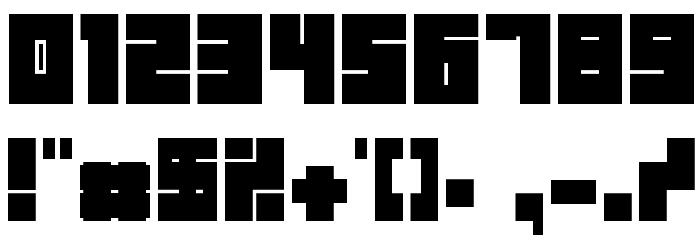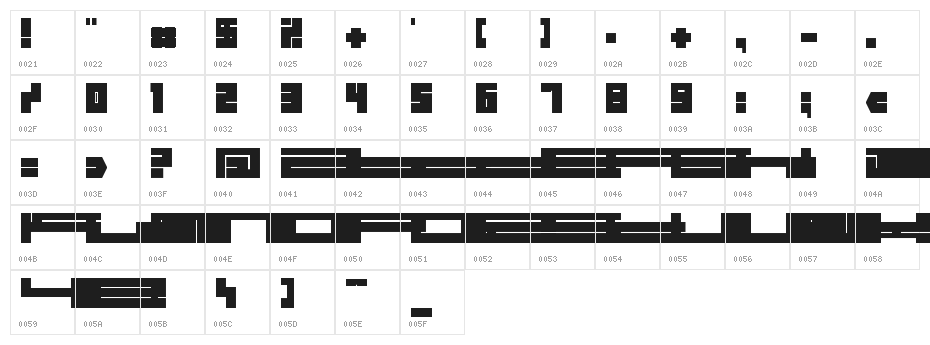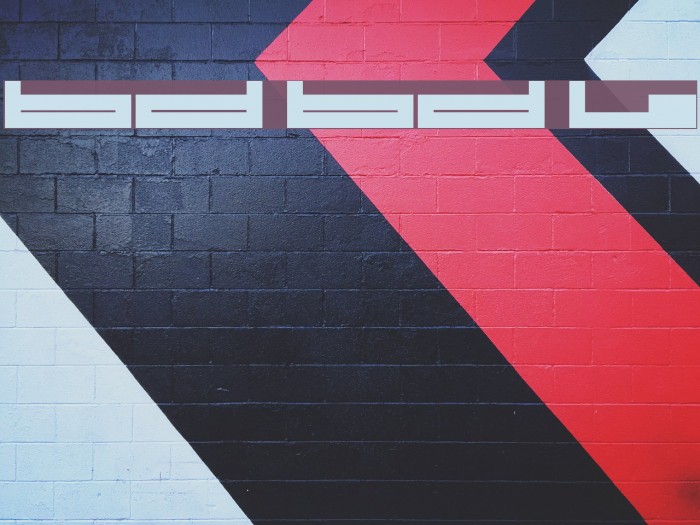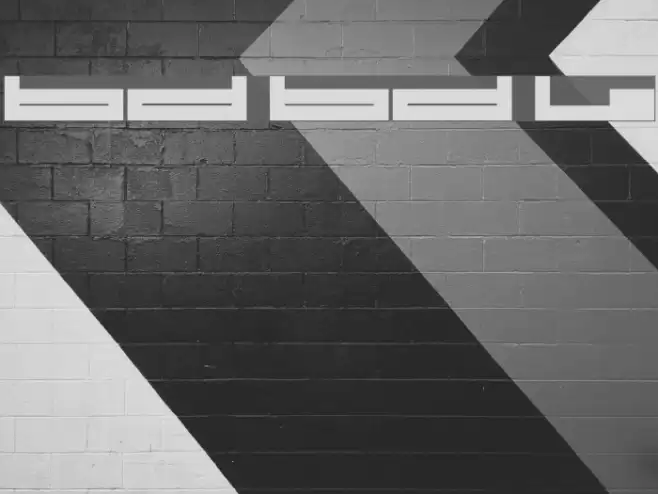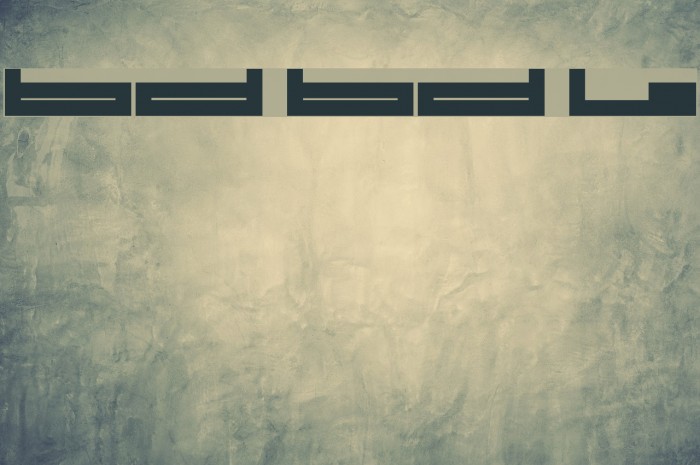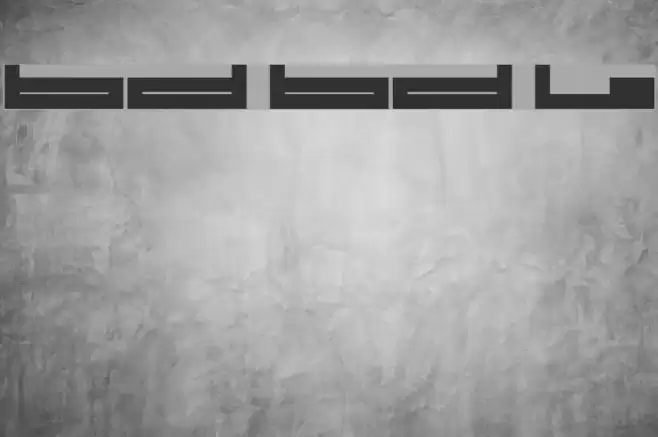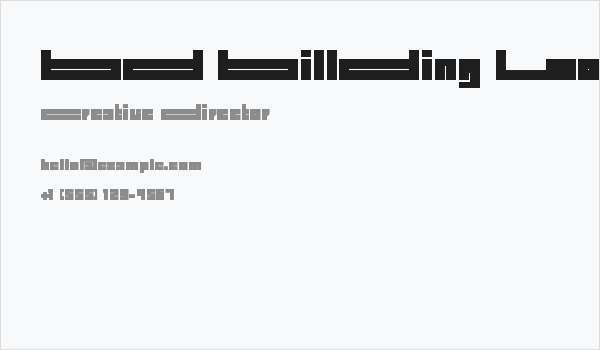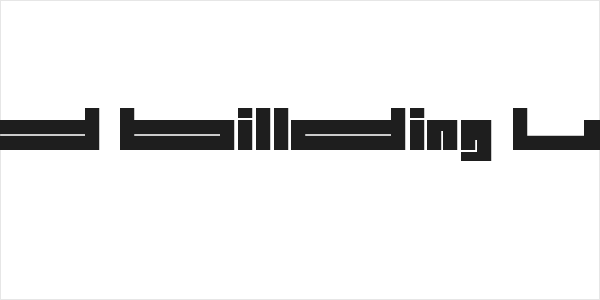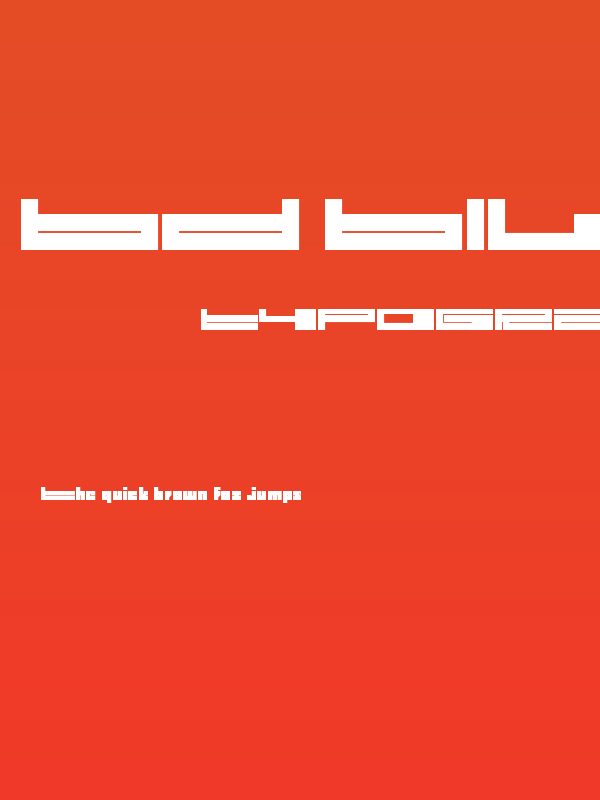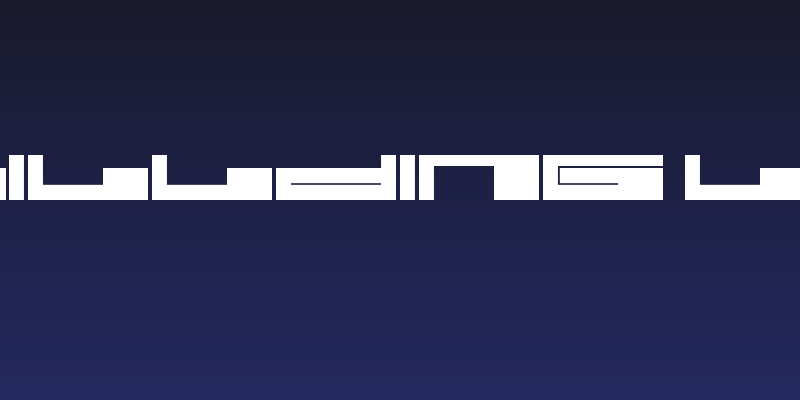
BD BillDing Long Font
BD BillDing Long Description
This font features a bold, geometric design with a distinctly modern and futuristic aesthetic. The characters are constructed with thick, block-like shapes that give a sense of strength and stability. The uppercase and lowercase letters maintain a consistent height, contributing to a uniform appearance. The numerals and special characters follow the same design principles, ensuring cohesion across all elements. The font's angular and structured form makes it highly legible, even at smaller sizes, while its unique style ensures it stands out in any design. The overall look is both industrial and digital, making it suitable for a variety of contemporary applications.
| Proposed Projects | Ideal for technology branding, video game titles, sci-fi posters, and modern digital interfaces. |